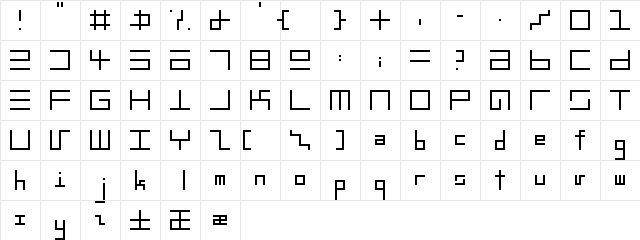
EppsText Regular
Design Context for EppsText Typeface
EppsText offers clean, dependable letterforms without strong stylistic allegiance, making it a practical choice for designers who need flexibility.